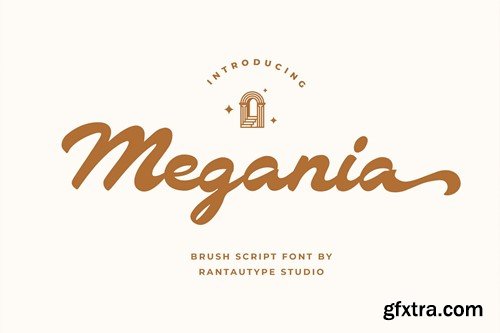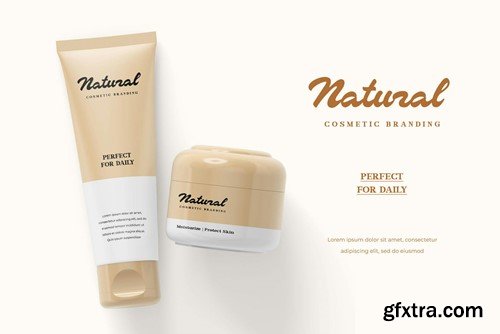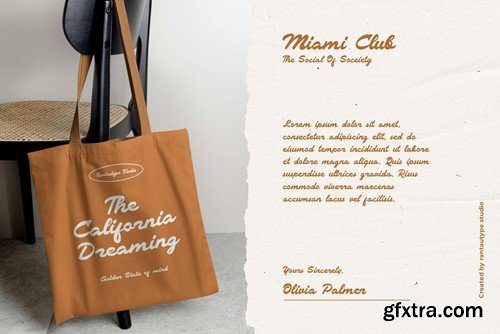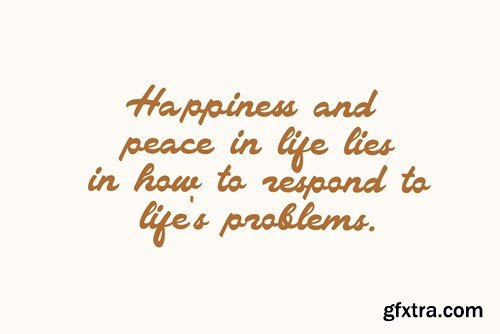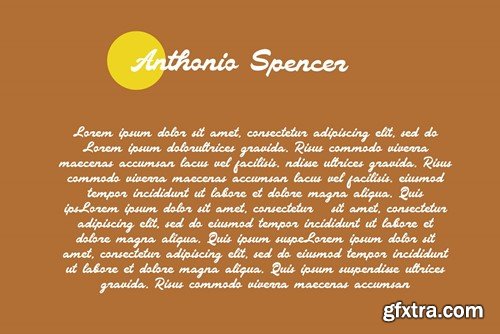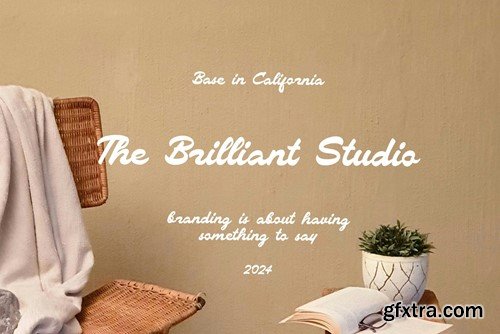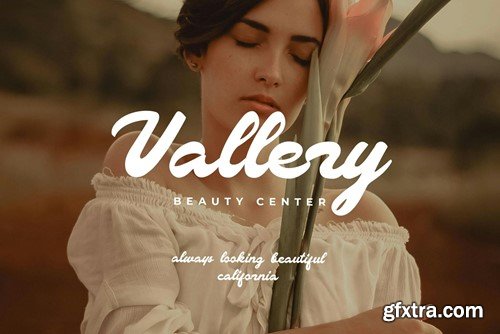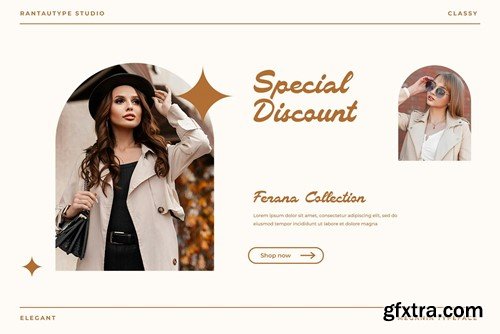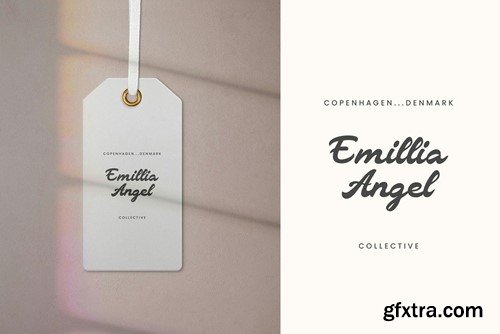
Megania Brush Script 字体 FTFA3F6
Megania is contrast brush script font with urban and pop culture. Megania formed from smooth curves and casual vibes Megania can bring you to make awesome design and make your brand stand out. Megania is perfectly choice for any creative endeavor, chic, lifestyle design such as logos, title, watermark on photography, cover, branding, display and magazine, wedding event, corporate brand, quotes, album cover, business card, business project and many other design project with handwritten taste. What you have: Fonts include multilingual support for: Afrikaans, Albanian, Asu, Basque, Bemba, Bena, Breton, Chiga, Cornish, Dutch, English, Estonian, Filipino, Finnish, Friulian, Galician, Gusii, Indonesian, Irish, Italian, Kabuverdianu, Kalenjin, Kinyarwanda, Luo, Luxembourgish, Luyia, Machame, Makhuwa-Meetto, Makonde, Malagasy, Manx, Morisyen, North, Ndebele, Nyankole, Oromo, Portuguese, Quechua, Romansh, Rombo, Rundi, Rwa, Samburu, Sango, Sangu, Scottish, Gaelic, Sena, Shambala, Shona, Soga, Somali, Spanish, Swahili, Swedish, Swiss, German. Thank you for your purchase! Hope you enjoy with our font!